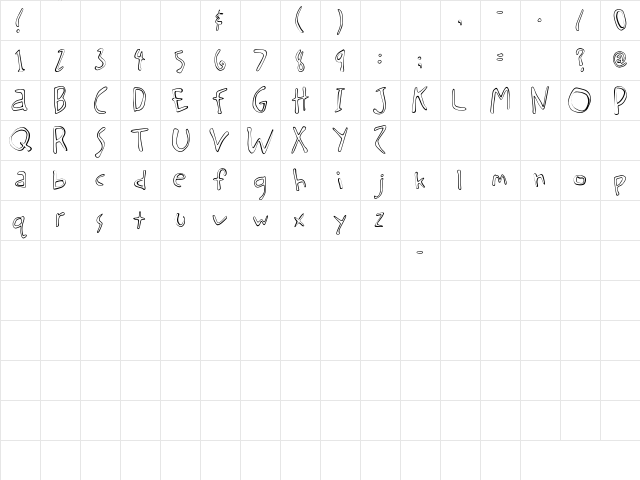
SBC Greetings Outline Regular
Design Context for SBC Greetings Outline Typeface
SBC Greetings Outline is built around its visual character rather than neutral utility — its distinctive forms are designed to make an impression at display sizes.
Font Pairing: Pair with a clean neutral sans-serif for body copy to let SBC Greetings Outline's character lead without overwhelming the composition.
Pro Tip: Use SBC Greetings Outline exclusively at display sizes — it was designed to be seen, not read at length. Let a neutral companion handle body copy.